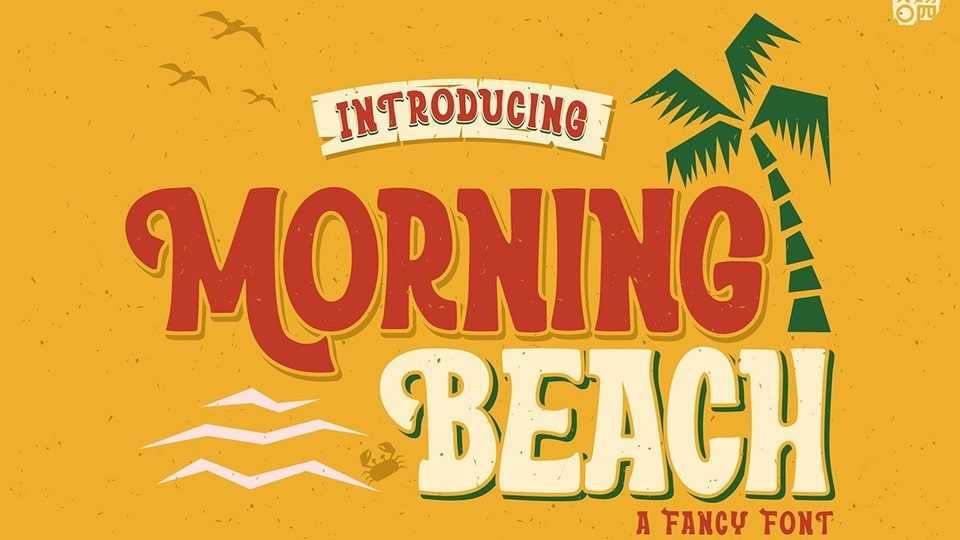
Download Morning Beach font, a bold and playful display typeface, taking inspiration from psychedelic lettering. Morning Beach font will look so good on your poster, blog, t-shirt and any other fun projects you are working on.